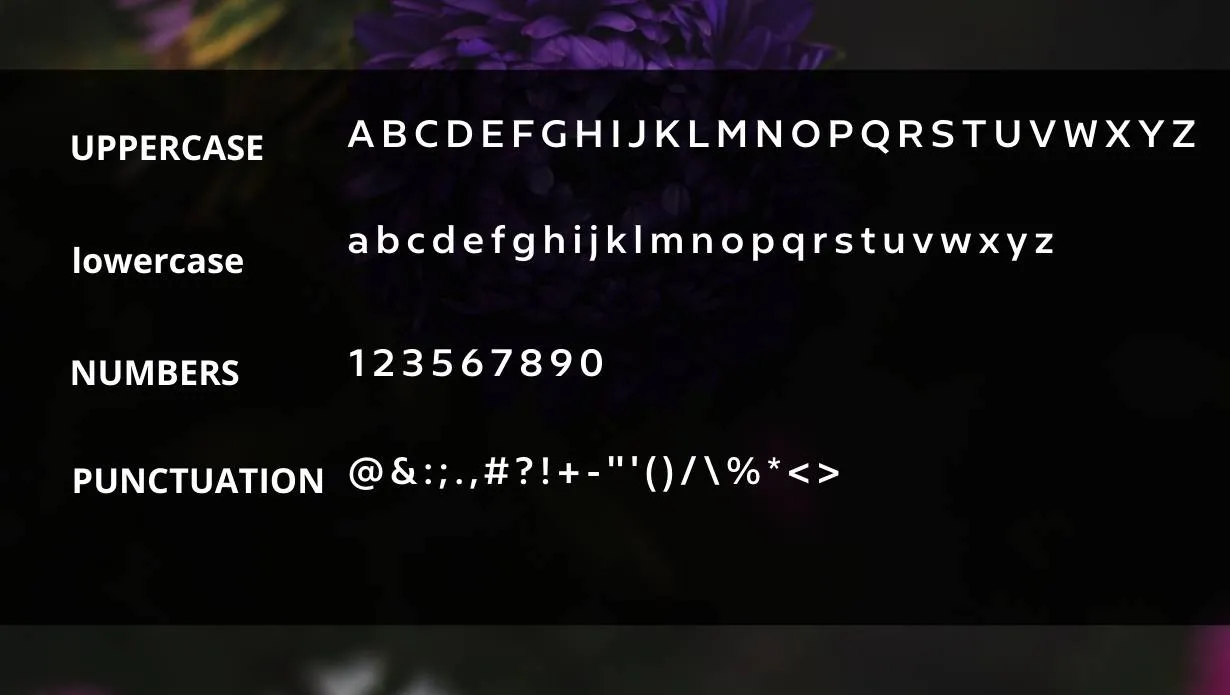
Riveta Font is a sans-serif typeface designed in 2016 by Kostas Bartsokas. The design is based on the popular Akzidenz-Grotesk family of typefaces, and specifically on the ‘Normal’ weight of Akzidenz-Grotesk which was released in 1898.
| Name | Riveta Font |
| Designer | Kostas Bartsokas |